Fonts Similar to Baskerville (& Font Pairings)
About the Baskerville Font Family
Designed in England in the 1750s by John Baskerville, Baskerville is a serif typeface that is classified as a transitional typeface because it falls between the old-style calligraphy typefaces of the period and modern typefaces.
As a transitional typeface, Baskerville offered more consistency in the size and form of characters than the calligraphic styles that were popular at the time. It did this by shifting the axis of rounded letters to a more vertical position, increasing the contrast between thick and thin strokes, and making the serifs sharper and more tapered.
Following its founder's death, the typeface was sold to a French publisher, but several designs inspired by Baskerville sprang up. Most notable was Baskerville Old Face, also known as Fry's Baskerville, created by The Fry Foundry of Bristol. A digitisation of this typeface is still included with some Microsoft software.
Some Characteristics of Baskerville Font
- The bottom arm of its "E" projects further than the upper.
- The "W" has no centre serif.
- The bottom loop is open in the lower-case "g".
- Many characters have clear ball terminals, in contrast to the more wedge-shaped serifs of earlier fonts.
Fonts Similar to Baskerville
1. Airif Simple Serif (OTF, TTF, WOFF)
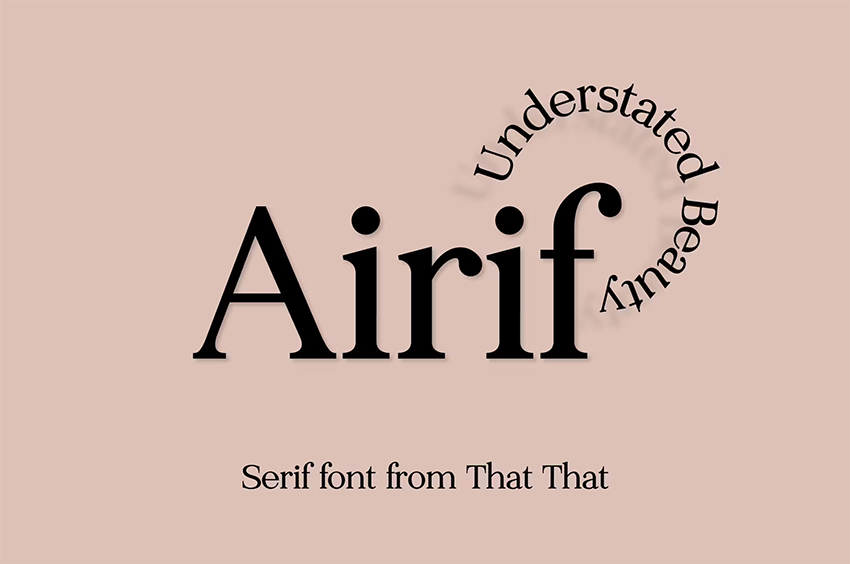
Sometimes all you need is a plain, clean serif font. And Airif is the perfect serif and a very close alternative to Baskerville. This clean serif is perfect for both body copy and headings, and has the perfect touch of personality. Airif includes web version letters, numbers, punctuation, arrows and more than 230 characters.
2. Figurative Serif Font (OTF, TTF, WOFF)
A more stylised take on Baskerville's more simplified strokes, Figurative Serif Font is a great choice for both headers and body text.
3. Marbley Modern Serif
With its elegant pointed serifs, Marbley is a great choice of replacement for Baskerville. This eye-catching modern font includes upper and lowercase characters, numbers, punctuation, and multilingual support.
4. Awaken Serif Font (OTF, TTF, WOFF)
Looking for a stylish header font? Awaken delivers in spades with its assortments of ligatures and alternates. Leave off the ligatures and alternates and you have an excellent font for body text as well.
5. Perfectly Noted (TTF)
As you can see here with Perfectly Noted, you have a font that is simple and legible enough to use for body text, which also offers a range of stylistic additions that can be used when you need to create eye-catching header text.
6. August Stories Font Duo (OTF, TTF)
August Stories is a font duo, but for now we are most interested in the font similar to Baskerville, August Stories Serif. August Stories Serif is both bold and elegant, making it a great choice for posters, signage, and other occasions when you need a standout font.
7. Maximum Visionary Font Family (TTF)
Maximum Visionary Font Family contains a whopping 18 variations. This means that you have just about everything you need in this font to create exactly the look you want.
8. Great Future Font ( OTF, TTF)
When you're looking for a terrific display font that takes Baskerville to the next level, look no further than Great Future Font. The font includes upper and lowercase characters, numbers, punctuation, ligatures, alternates, and multilingual support.
9. Sabuan Island Display Font ( OTF, TTF)
This wonderful serif offers the legibility of Baskerville with the boldness of a display font, making it a great choice for signage, posters, titles, and more.
10. Galmiyor Font (OTF, TTF, WOFF)
Check out Galmiyor Font, a terrific serif font for those occasions when you need a legible but stylish font for body text. Galmiyor comes in both regular and italic styles.
11. Anything Serif Font (OTF, TTF)
With the full complement of upper and lowercase characters, numbers, punctuation, ligatures, and alternates, Anything Serif Font is an excellent choice for a wide range of applications, from book covers to Instagram templates.
12. Shows Gracious (OTF, TTF)
You can't go wrong with Shows Gracious, a wonderful serif that's offered in two styles: regular and oblique. The graceful font includes upper and lowercase characters, numbers, punctuation, ligatures, alternates, and multilingual support.
13. Lucky Beauty Serif (OTF, TTF, WOFF)
Want to get fancy? Try Lucky Beauty Serif. This wonderful serif includes both regular and italic versions and is legible enough for body text and striking enough when you need to create an eye-catching header.